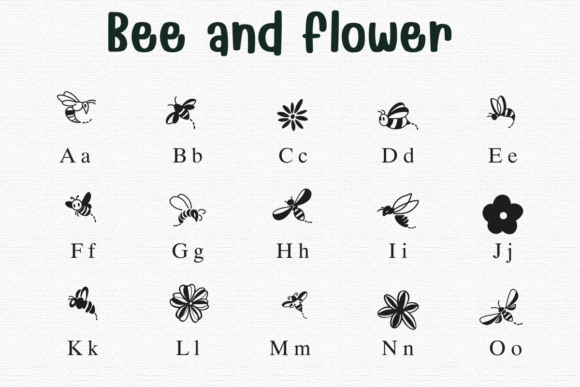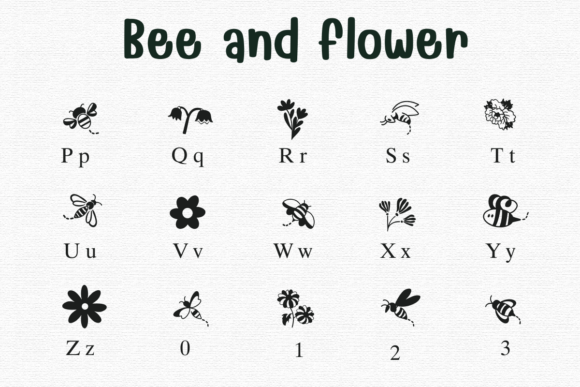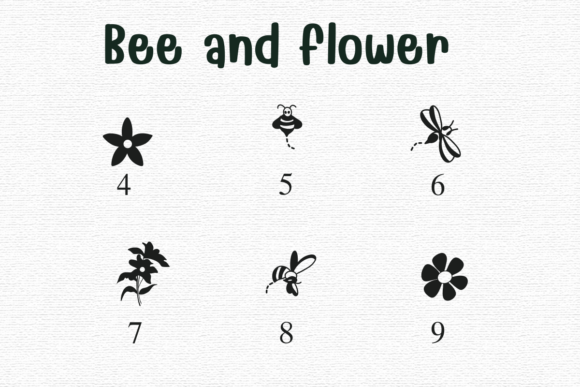
Bee and Flower Font
Bee and Flower Dingbats Font is a whimsical set of buzzing bees and blooming florals, perfect for nature-inspired designs. Whether you’re creating garden-themed projects, eco-friendly packaging, or playful invitations, this font brings a fresh and friendly aesthetic.